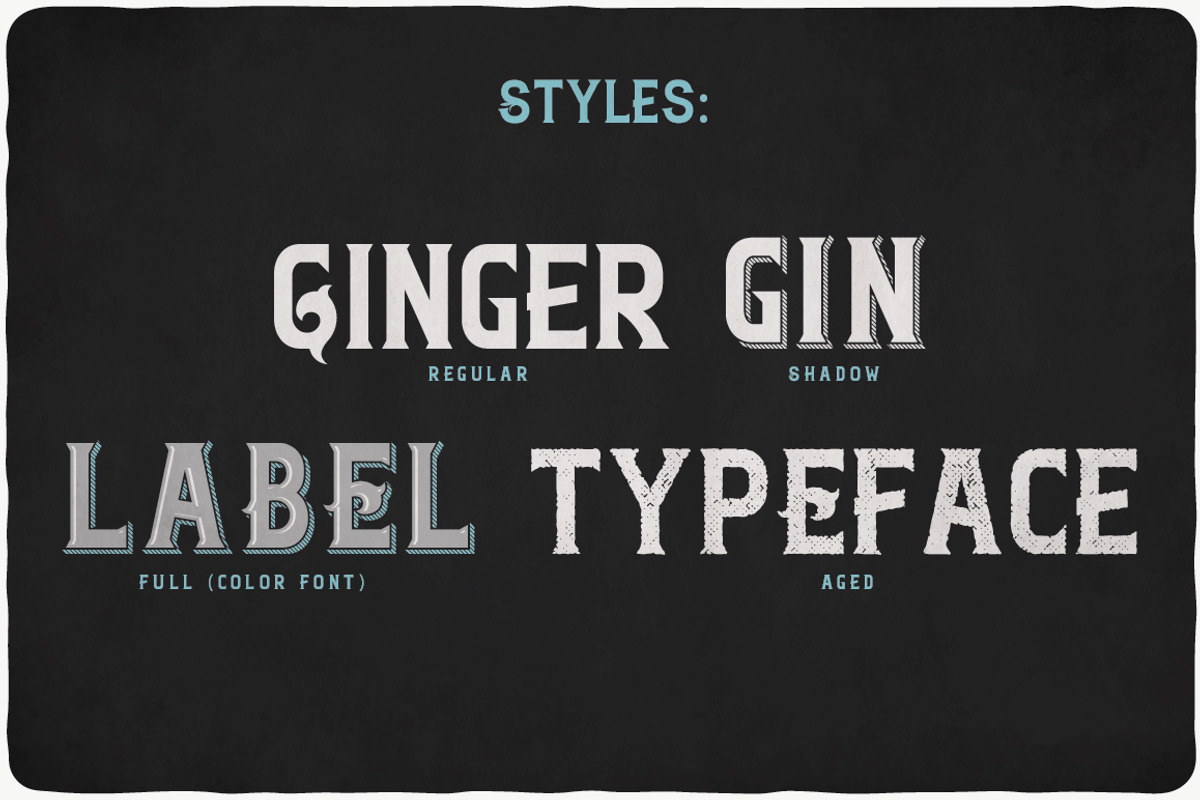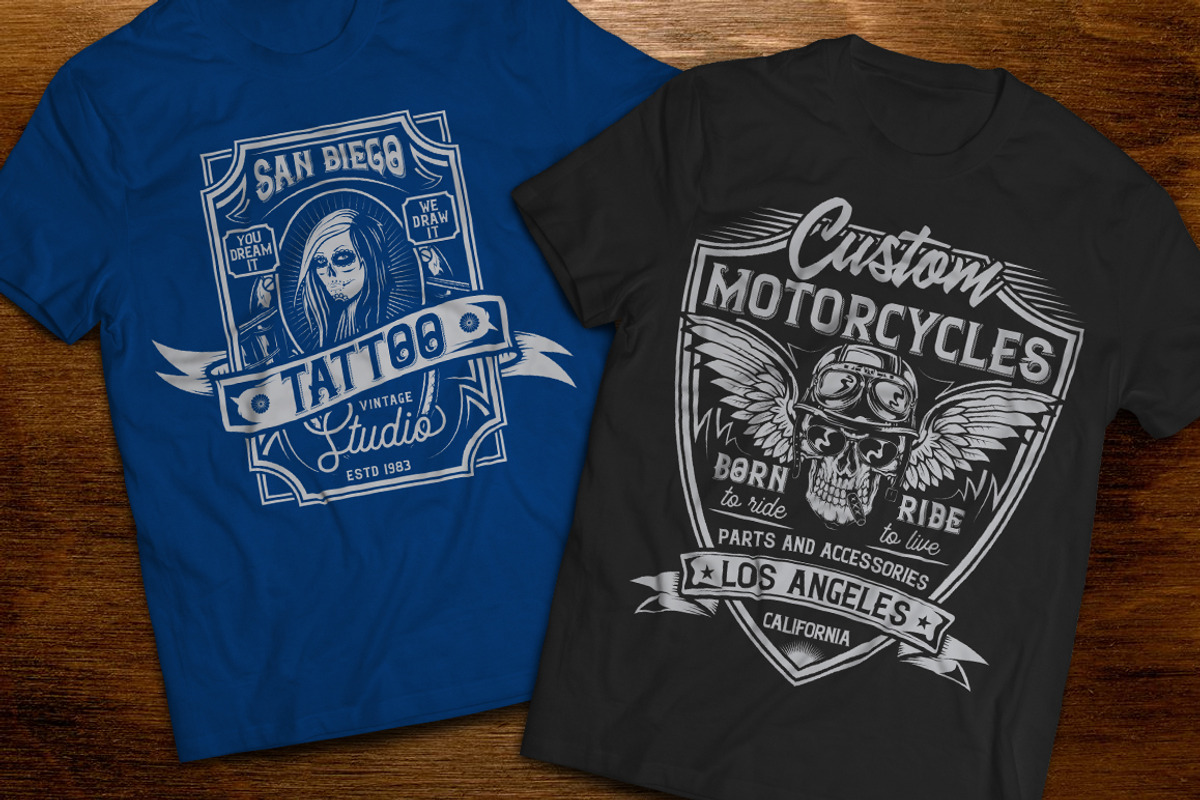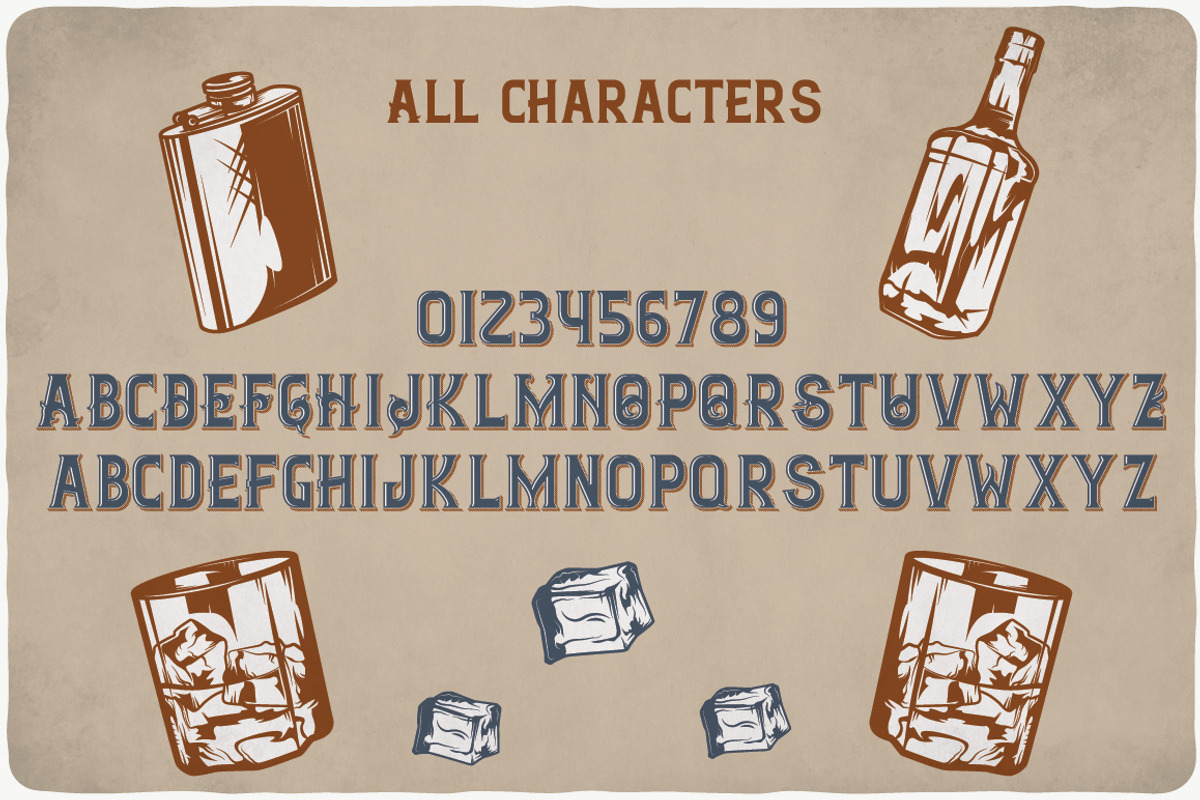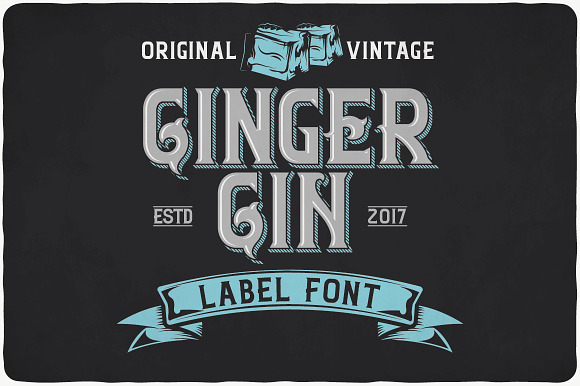
Ginger Gin typeface
Introducing a vintage look label typeface named "Ginger Gin". This typeface includes four styles, for sample look at 4th preview. Typeface is good viewed on any yours design.
Why Ginger Gin typeface is worth a look
Ginger Gin typeface by VozzyStock fits naturally into Branding, posters, packaging, typography.